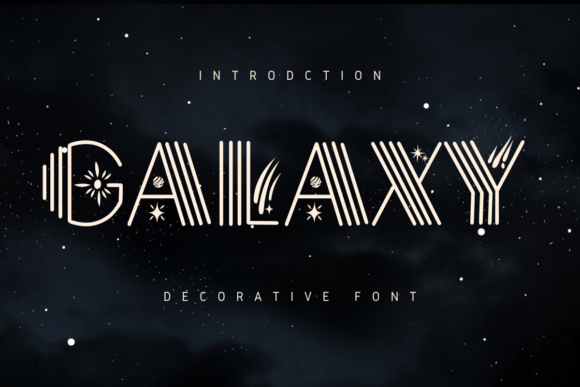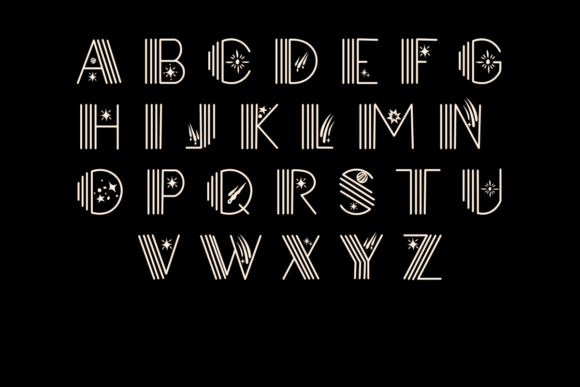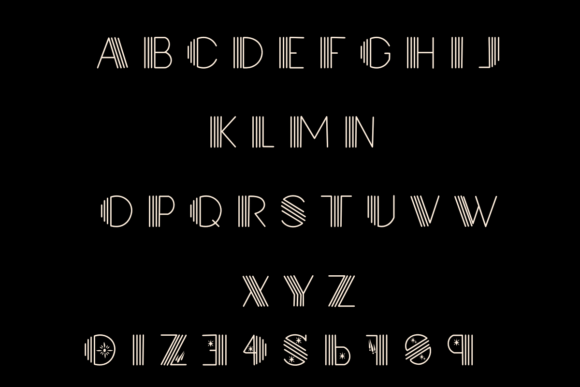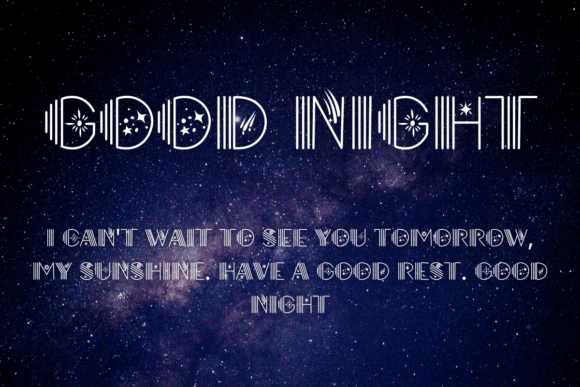
Galaxy Font
About the Galaxy Font
Discover the charm of Galaxy Font. This font is a perfect blend of modern aesthetics and classic appeal. Galaxy is a Decorative font You can use it for taking notes, writing a diary, or making greeting cards. However, you can still use it for other designs, such as banners, content, mugs, cards, shirts, stationery, social media posts, and more!
Galaxy’s decorative nature makes it ideal for headlines, short text blocks on posters or packaging, and branding elements requiring a touch of whimsy. It excels in projects focused on creativity, playfulness, or a youthful energy. However, its intricate details make it unsuitable for body text or UI elements where readability is paramount; using it for long paragraphs would severely hinder legibility.
Pairing Galaxy with a clean sans-serif like Open Sans for body copy provides excellent contrast and readability. For a more sophisticated feel, consider pairing it with a classic serif like Garamond. If a bolder statement is needed, a geometric sans-serif such as Futura can create a striking visual impact.
Galaxy’s overall personality is playful and bold, yet maintains a friendly approachability. It’s perfect for brands targeting a younger demographic or those emphasizing creativity and fun.
Galaxy Font Usage Examples
Galaxy Font Example